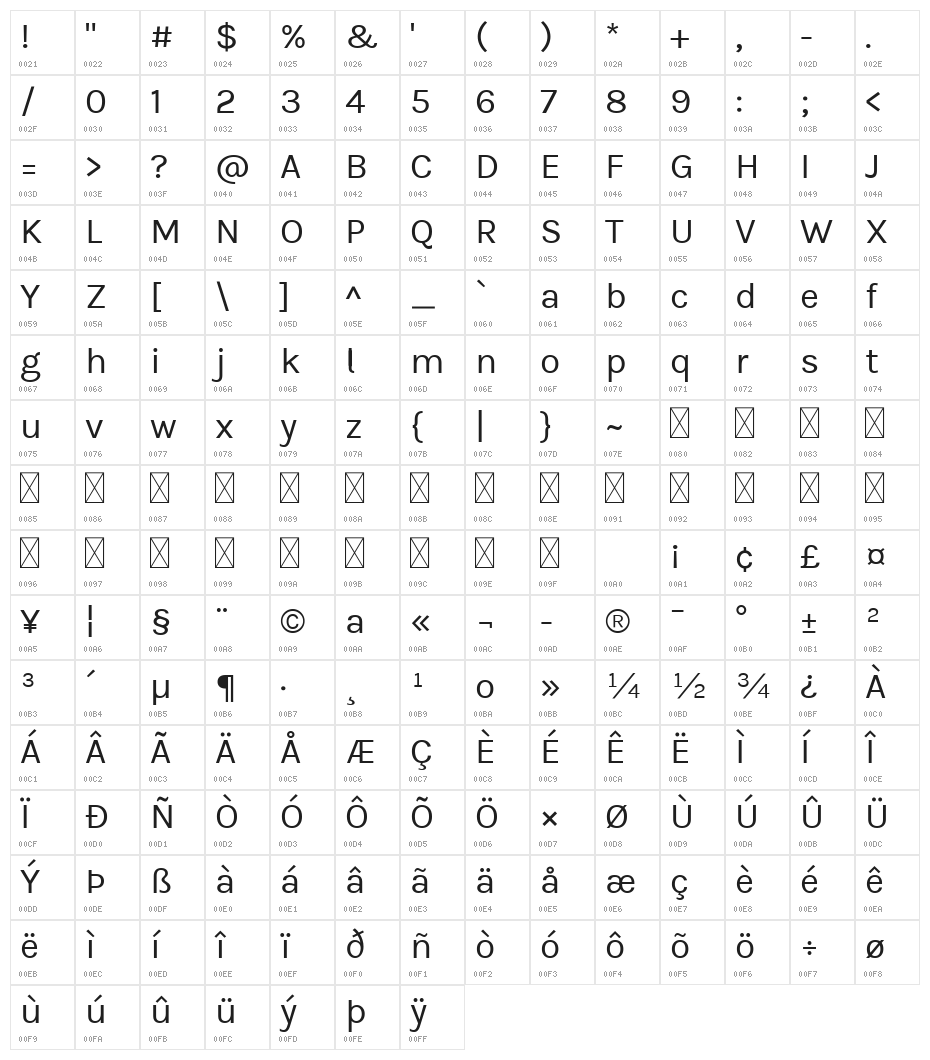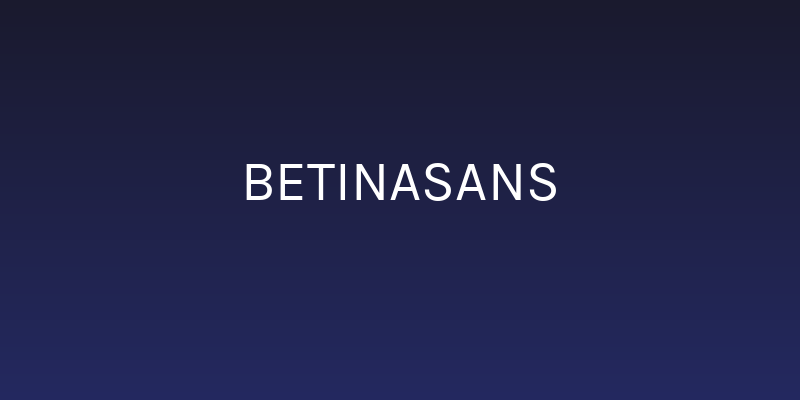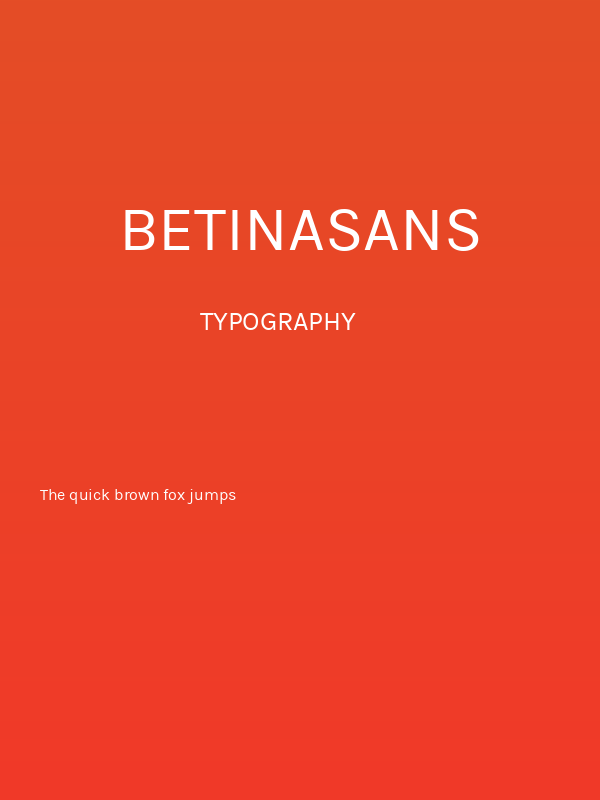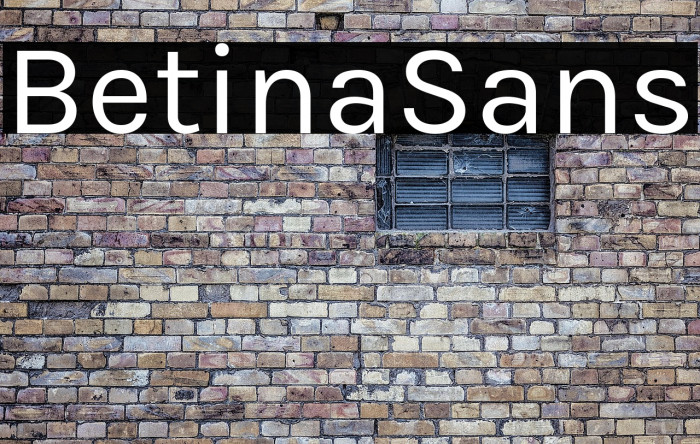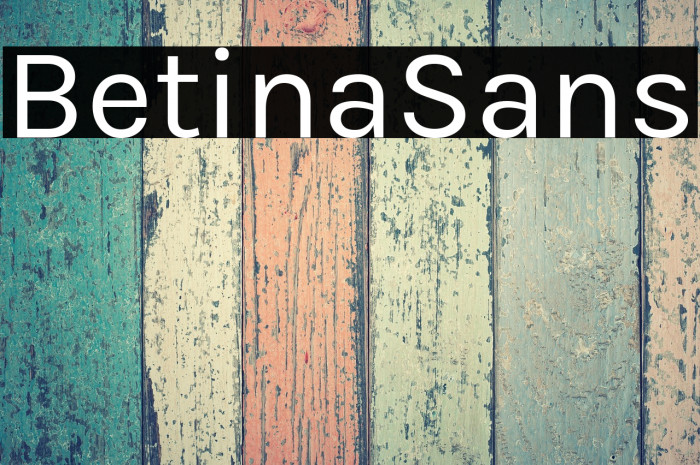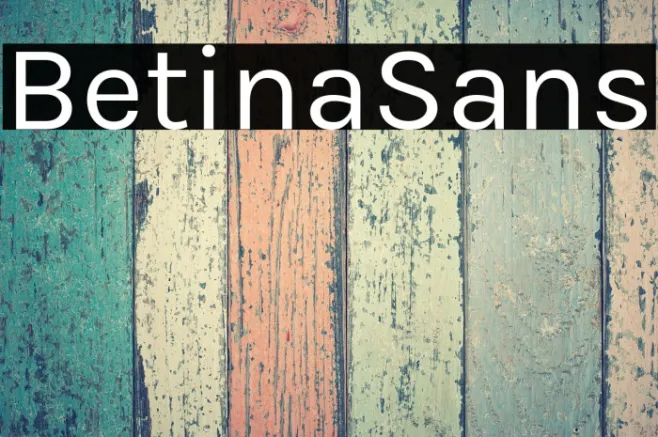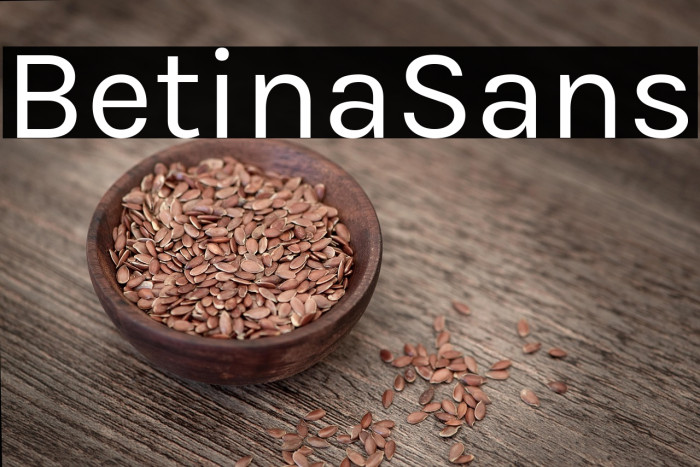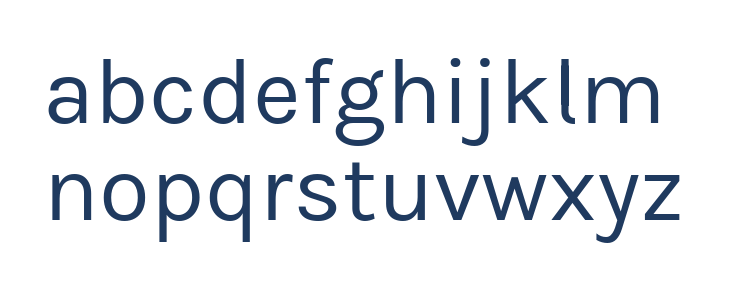
BetinaSans Font
BetinaSans Description
This font features a clean and modern sans-serif design, characterized by its simplicity and readability. The letters are evenly spaced with a consistent stroke width, providing a balanced and harmonious appearance. The uppercase letters are bold and assertive, while the lowercase letters maintain a friendly and approachable feel. The numerals are clear and distinct, ensuring easy readability. Special characters are well-integrated, maintaining the overall aesthetic of the font. Its versatility makes it suitable for a wide range of applications, from digital interfaces to print media.
| Proposed Projects | Ideal for branding, web design, corporate materials, and editorial layouts. |